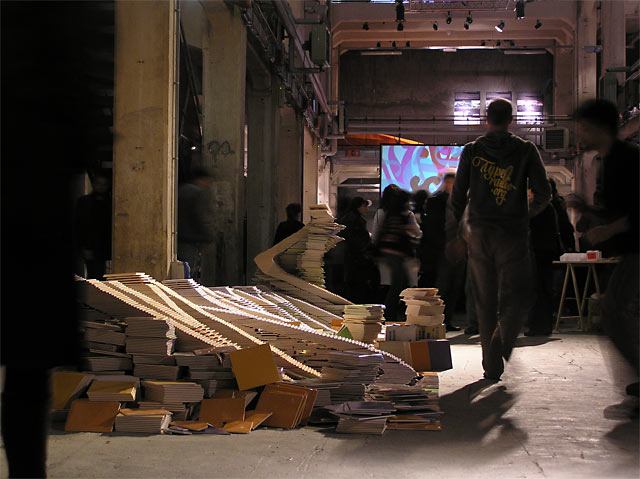
From the ground floor, the final 3D installation looks like an architectural maquette. Illegible, mysterious, fascinating, unreadable. Only from the top floor the lettering can be read. 'informe', meaning 'without form' in Italian, and referring to the English verb 'inform'. More than 300 square meters of Marazzi tiles have been used to create the 2x1x6 meters typographic piece. All to be removed again, just existing for a short moment, temporary, for a good time.